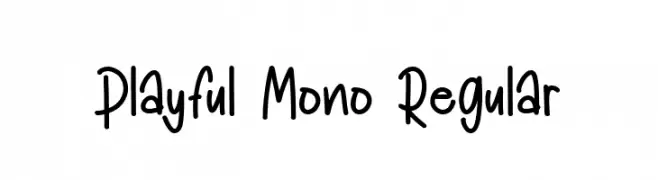
A pixelated, retro-style font with a digital, tech-inspired design.
A bold, futuristic font with a geometric, digital aesthetic.
A futuristic, geometric font with shadowed outlines and a tech-inspired style.
A bold, geometric font with a futuristic, industrial style.
An ornate and decorative font with intricate detailing and vintage elegance.
A bold, geometric font with Art Deco influences, perfect for striking headlines and branding.
A playful, hand-drawn font with bold, rounded characters.
A rugged, hand-chiseled font with jagged edges and an artistic flair.
A bold, blocky font with uppercase letters enclosed in square borders, ideal for impactful designs.
A bold, retro-style font with a 3D shadow effect.
An elegant script font with ornate, flowing letterforms and decorative flourishes.
A bold, modern font with a futuristic and geometric design.
A playful and modern font with decorative loops and curves.
A geometric, futuristic font with angular, linear design and uniform stroke width.
A playful, handwritten font with bold, dynamic strokes and whimsical flourishes.
A bold, blackletter font with Christian monograms and symbols, ideal for historical themes.
A festive serif font with snowflake embellishments, ideal for holiday themes.
Whimsical, festive script with ornate swashes and bold, flowing lowercase.
Highly decorative script with ornate swashes and high contrast.
Ornate, calligraphic script with dramatic swashes and a festive feel.
A festive, decorative script font with holiday-themed flourishes.
A bold, festive script font with playful, hand-lettered strokes.
A whimsical, festive script font with decorative elements like stars and hearts.
Bold, decorative brush script with playful swashes and high contrast.
A festive, cursive font with elegant loops and swirls, perfect for holiday themes.
Dynamic, brush-style handwritten script with energetic flow.
A bold, condensed, playful display font with rounded forms.
Ornate script font with botanical embellishments and festive flair.
A playful, hand-drawn font with irregular strokes and a whimsical style.